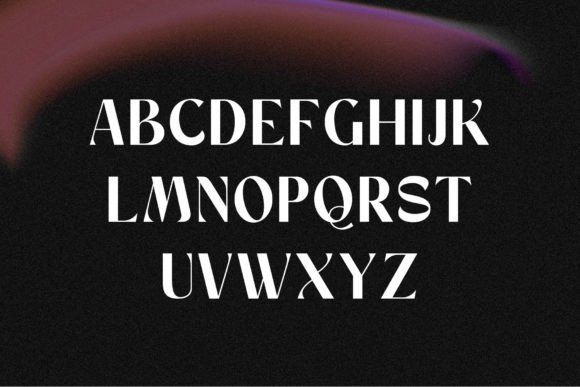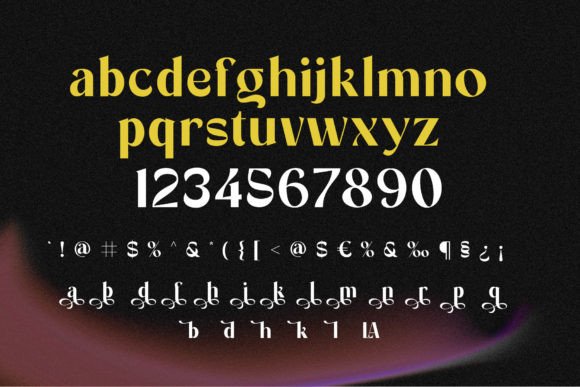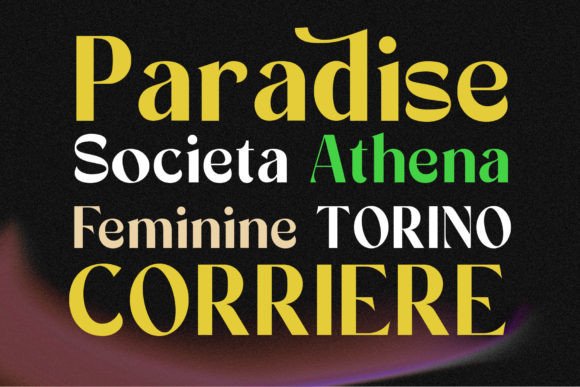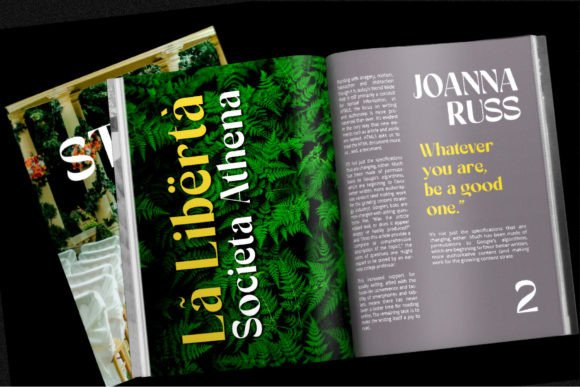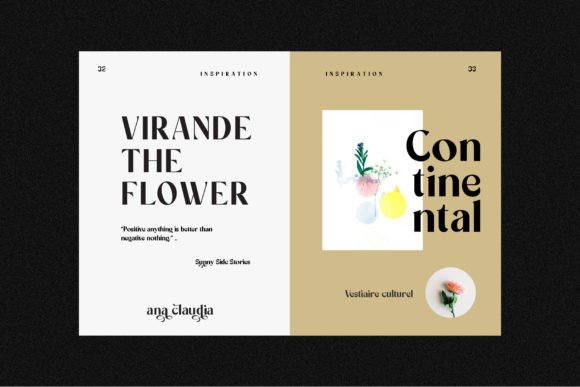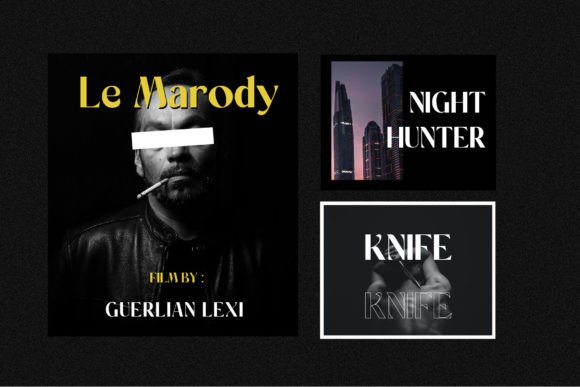
Athans Font: Elevate Your Designs with Elegance and Boldness
Are you on the hunt for a font that exudes elegance, sophistication, and versatility? Look no further than Athans Font! This stunning serif font is making waves in the design community, and for good reason. With its unique blend of boldness and refinement, Athans is perfect for creating a wide range of projects, from wedding invitations and stationery to social media posts and more.
The Characteristics of Athans Font
Athans Font boasts an incredibly versatile style that can effortlessly adapt to various design needs. Its key characteristics include:
- Elegant and Bold Serif: Athans features a classic serif design with a bold twist, making it perfect for headlines, titles, and emphasis text.
- Versatile Style: This font can seamlessly transition from formal to informal designs, making it suitable for a wide range of projects.
- High Readability: Athans is designed with readability in mind, ensuring that your text remains clear and easy to read, even at smaller font sizes.
Creative Use Cases for Athans Font
Athans Font is a designer’s dream come true, offering endless possibilities for creative expression. Here are some inspiring use cases to get you started:
- Wedding Invitations: Create stunning wedding invitations, save-the-date cards, and ceremony programs that exude elegance and sophistication.
- Stationery Art: Design beautiful stationery sets, including letterheads, journals, and planners, that showcase your brand’s personality.
- Social Media Posts: Elevate your social media game with eye-catching posts, quotes, and graphics that grab attention and inspire engagement.
- Branding and Packaging: Use Athans to create a cohesive brand identity that reflects your values and style, perfect for logos, labels, and packaging design.
Why Choose Athans Font?
With so many fonts available, what sets Athans apart? Here are just a few reasons why designers and crafters are falling in love with Athans Font:
- Unique Style: Athans offers a distinctive and refreshing design that will set your projects apart from the crowd.
- Easy to Read: The font’s high readability ensures that your message is conveyed clearly, making it perfect for body text and captions.
- Flexible and Adaptable: Athans can be used for both digital and print projects, making it a versatile addition to your font library.
Tips for Working with Athans Font
To get the most out of Athans Font, here are some expert tips to keep in mind:
- Experiment with Font Sizes: Play with different font sizes to create visual hierarchy and emphasis in your designs.
- Pair with Complementary Fonts: Combine Athans with other fonts to create striking contrast and add depth to your designs.
- Adjust Letter Spacing: Fine-tune letter spacing to optimize readability and achieve a polished look.
| Font Name | Athans Font |
| Author | Storic |
Athans Font is a game-changer for designers and crafters seeking to elevate their projects with elegance and boldness. With its versatile style, high readability, and endless creative possibilities, it’s no wonder that Athans is quickly becoming a favorite among design enthusiasts. So why wait? Fall in love with Athans Font and unlock a world of design possibilities today!